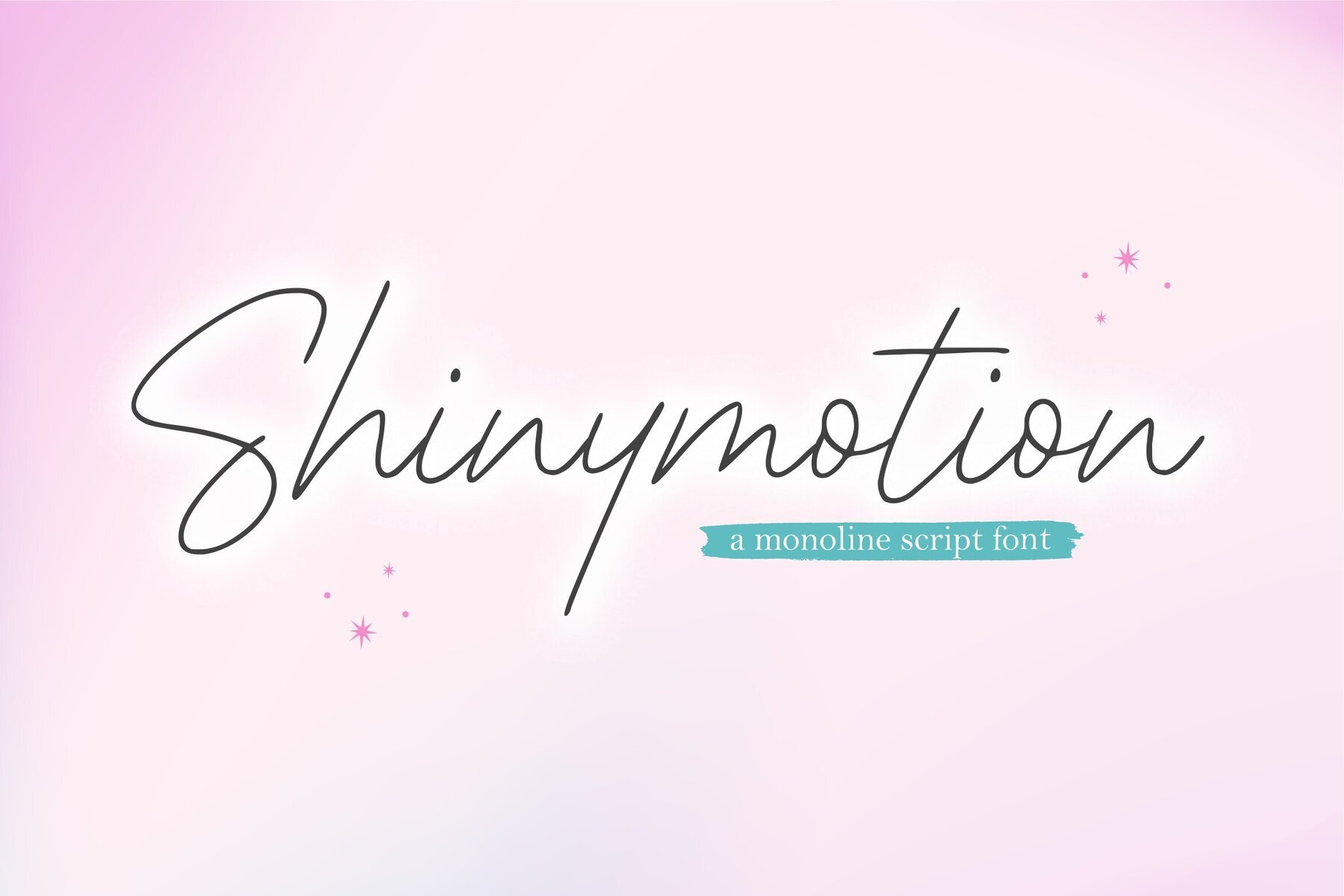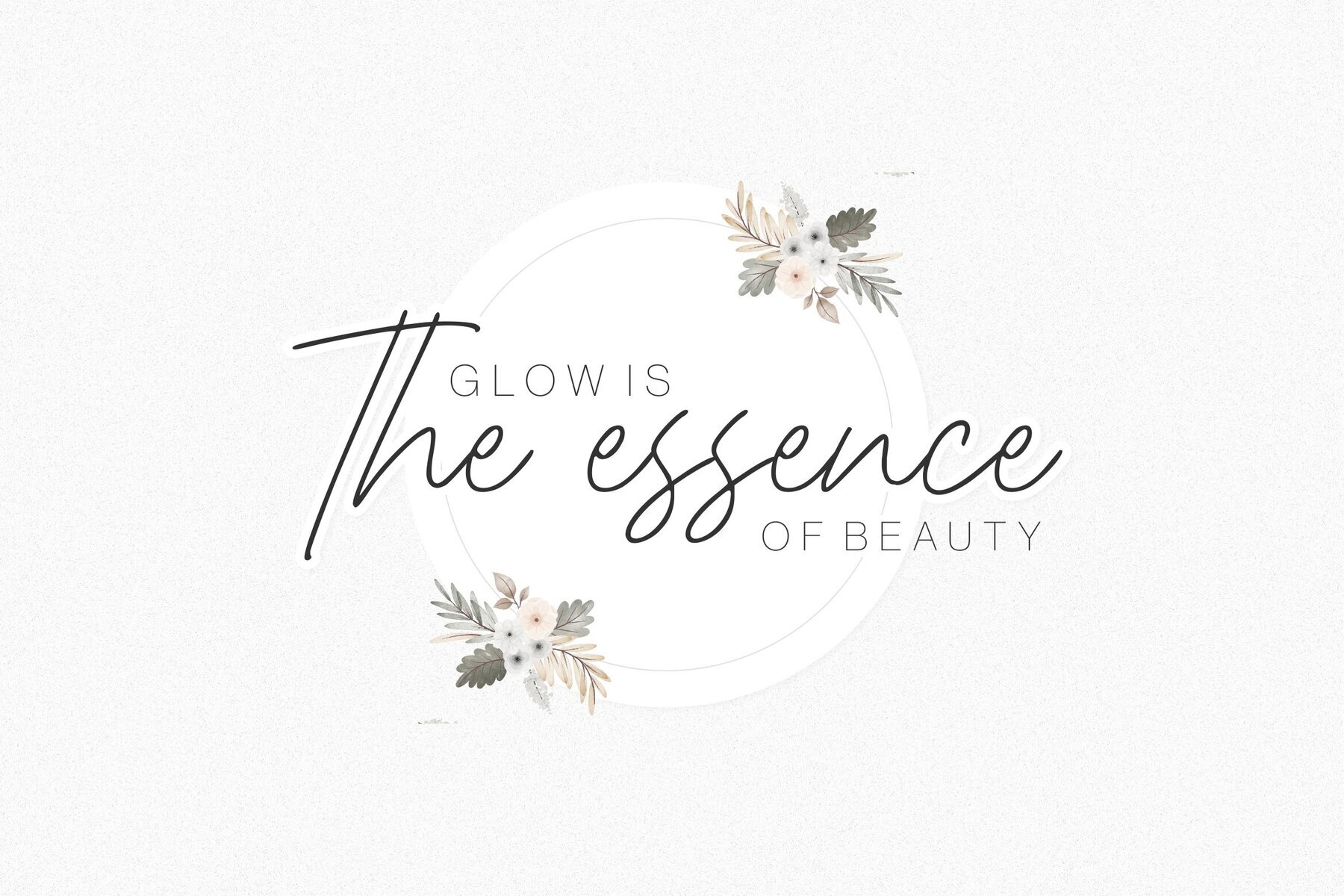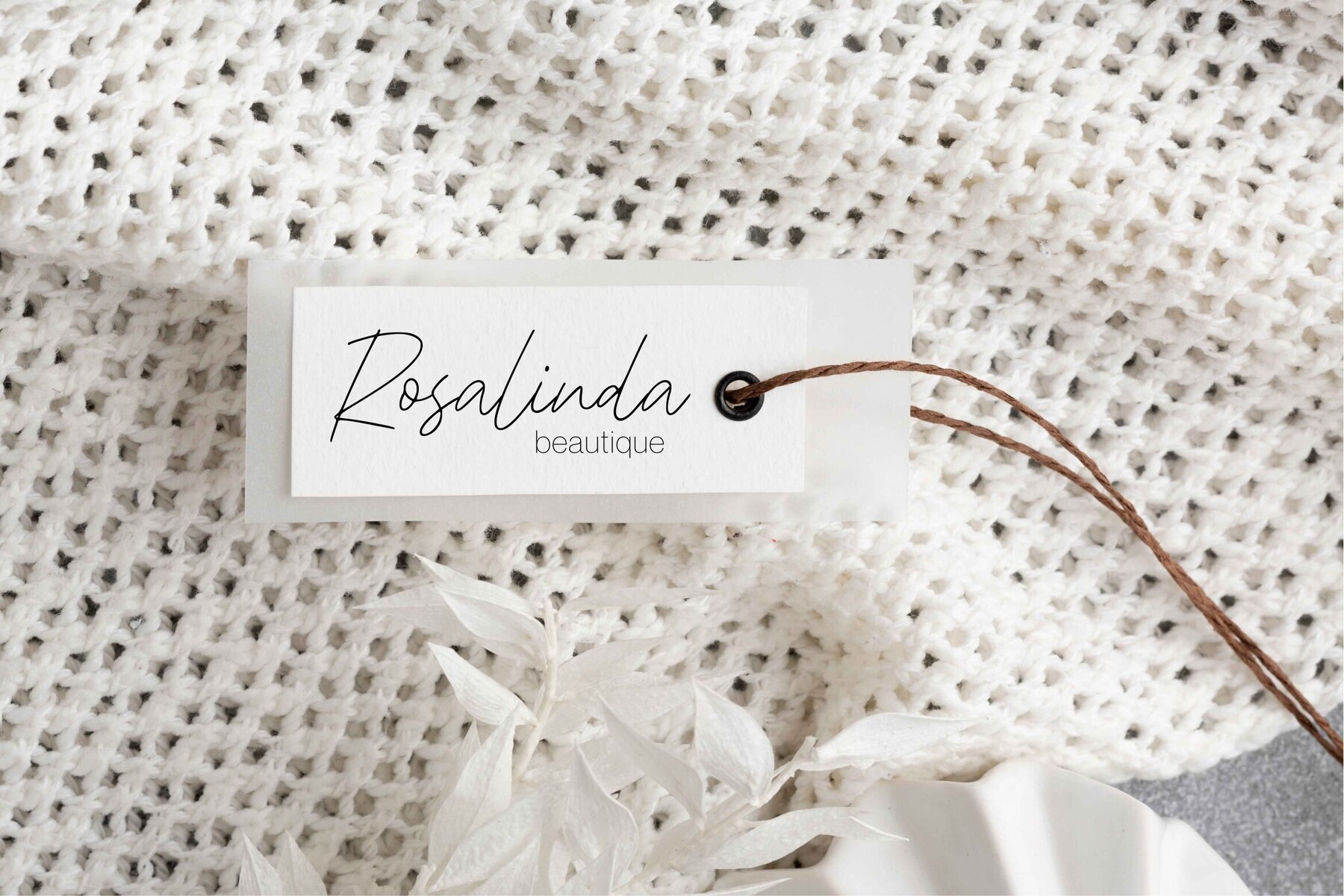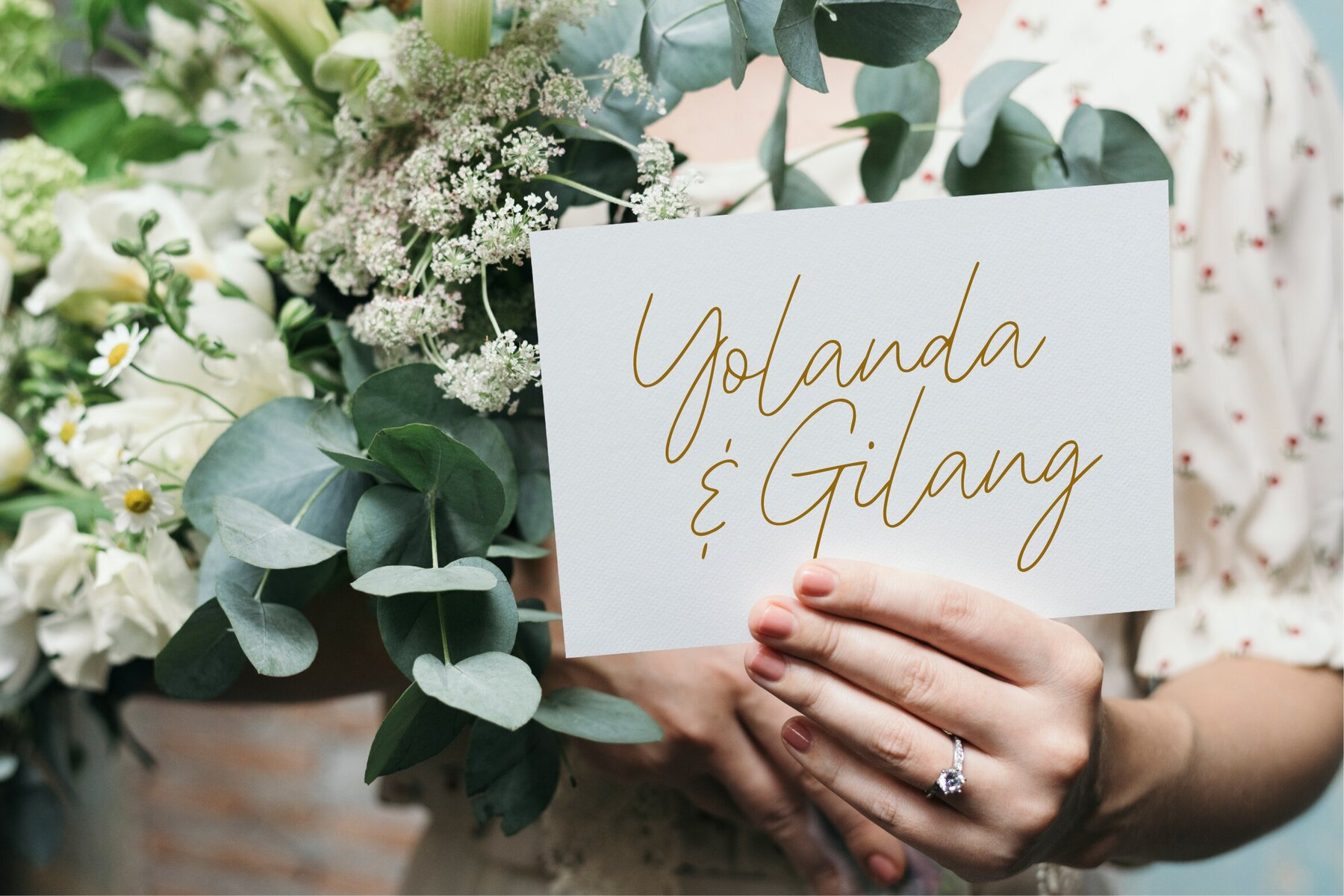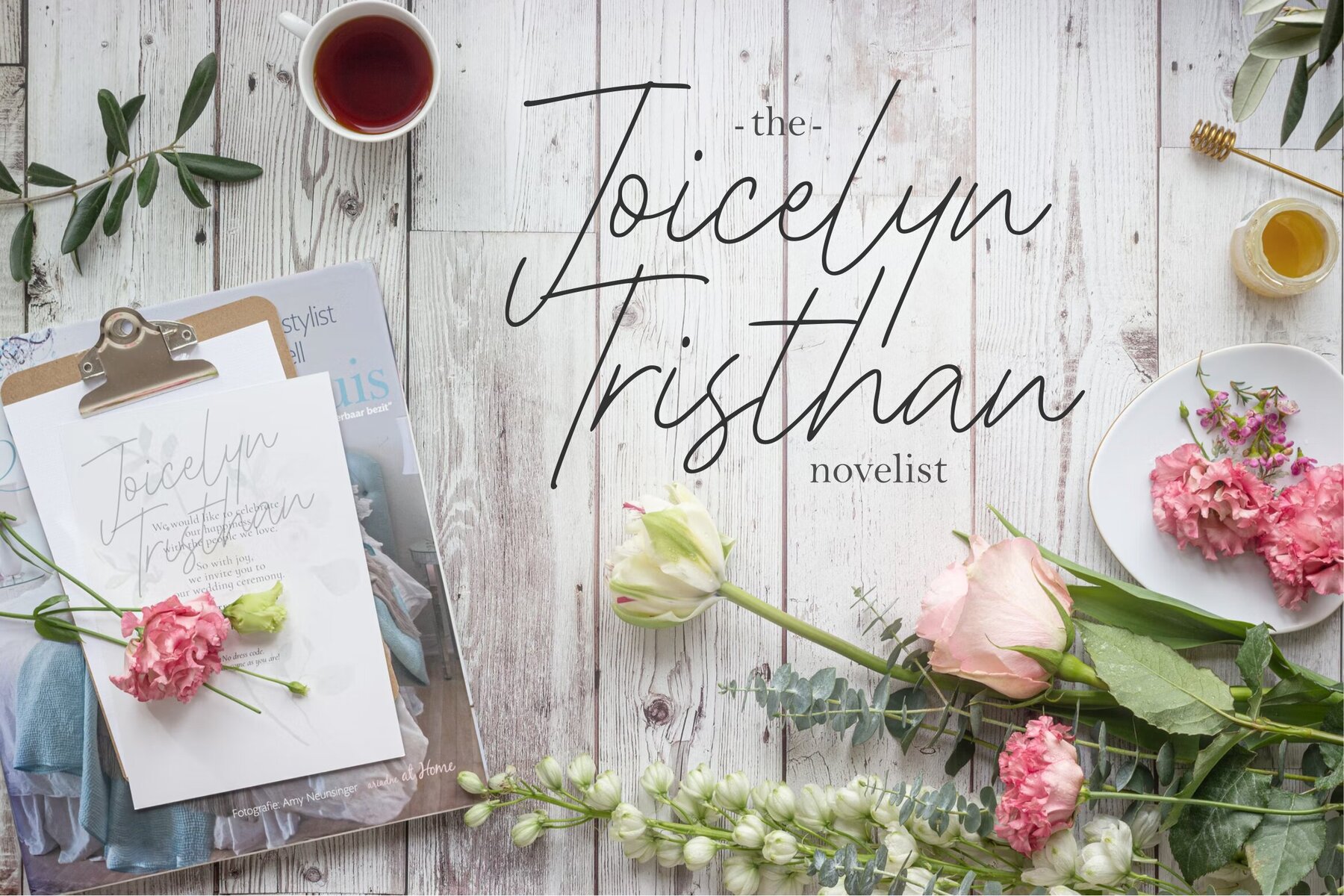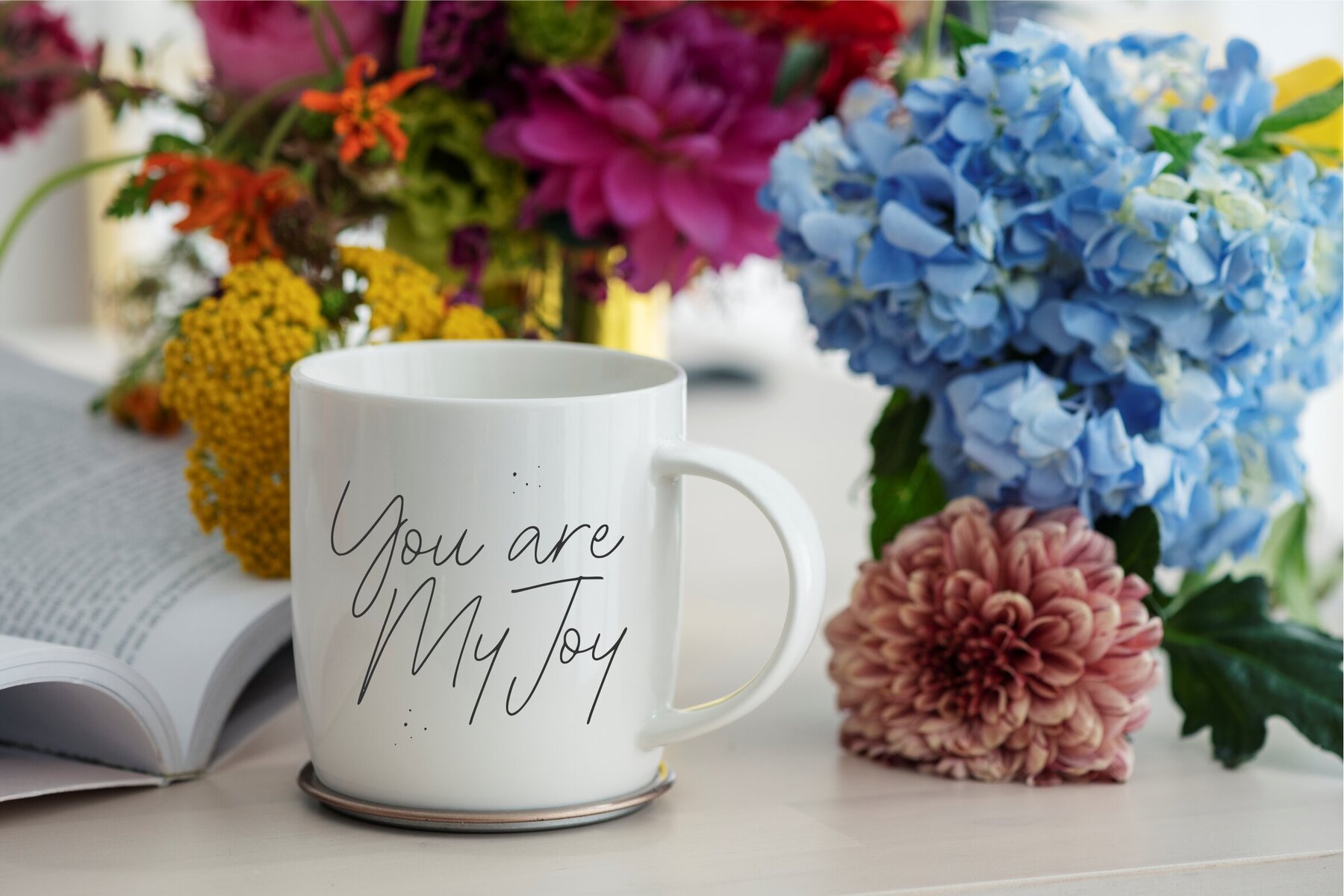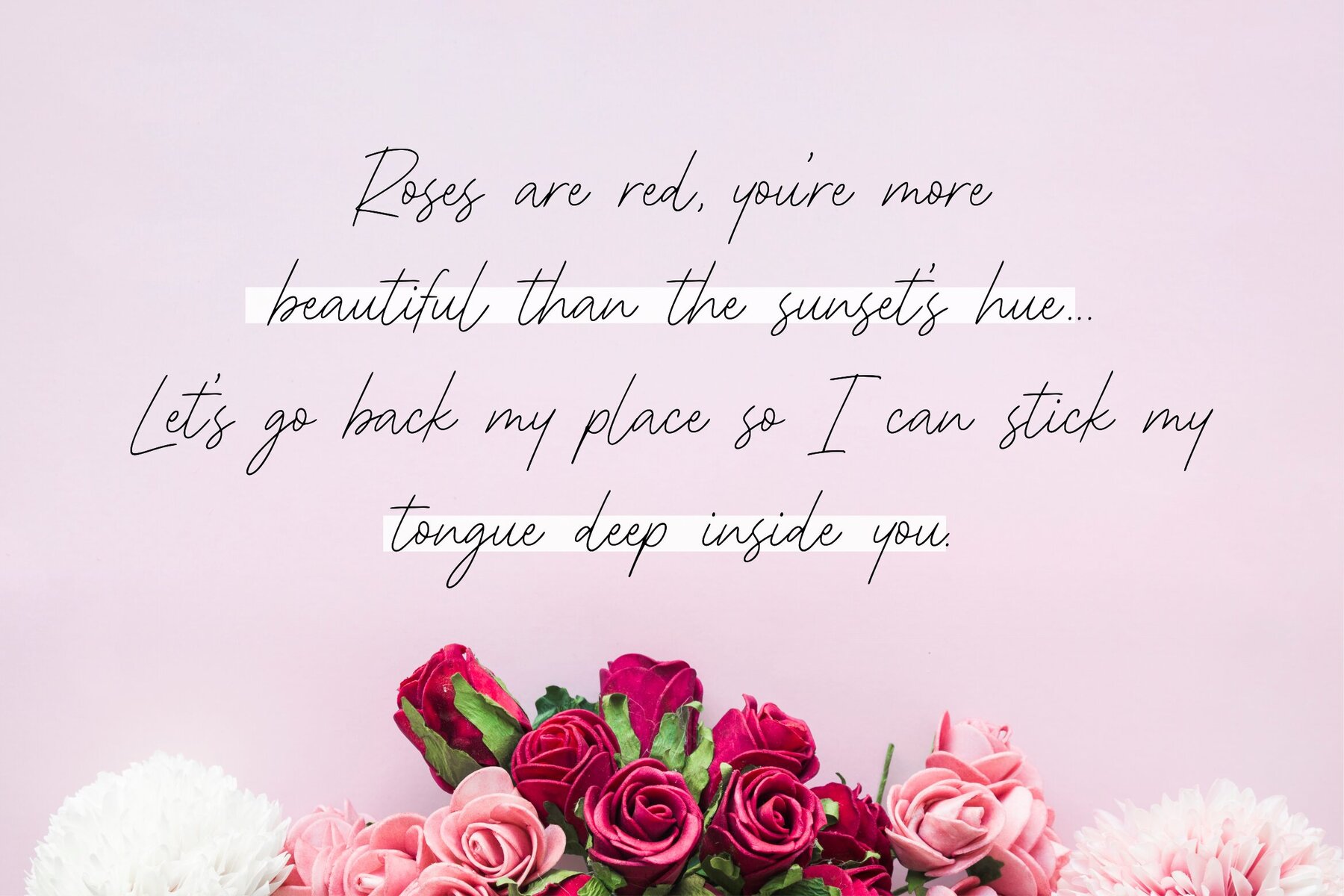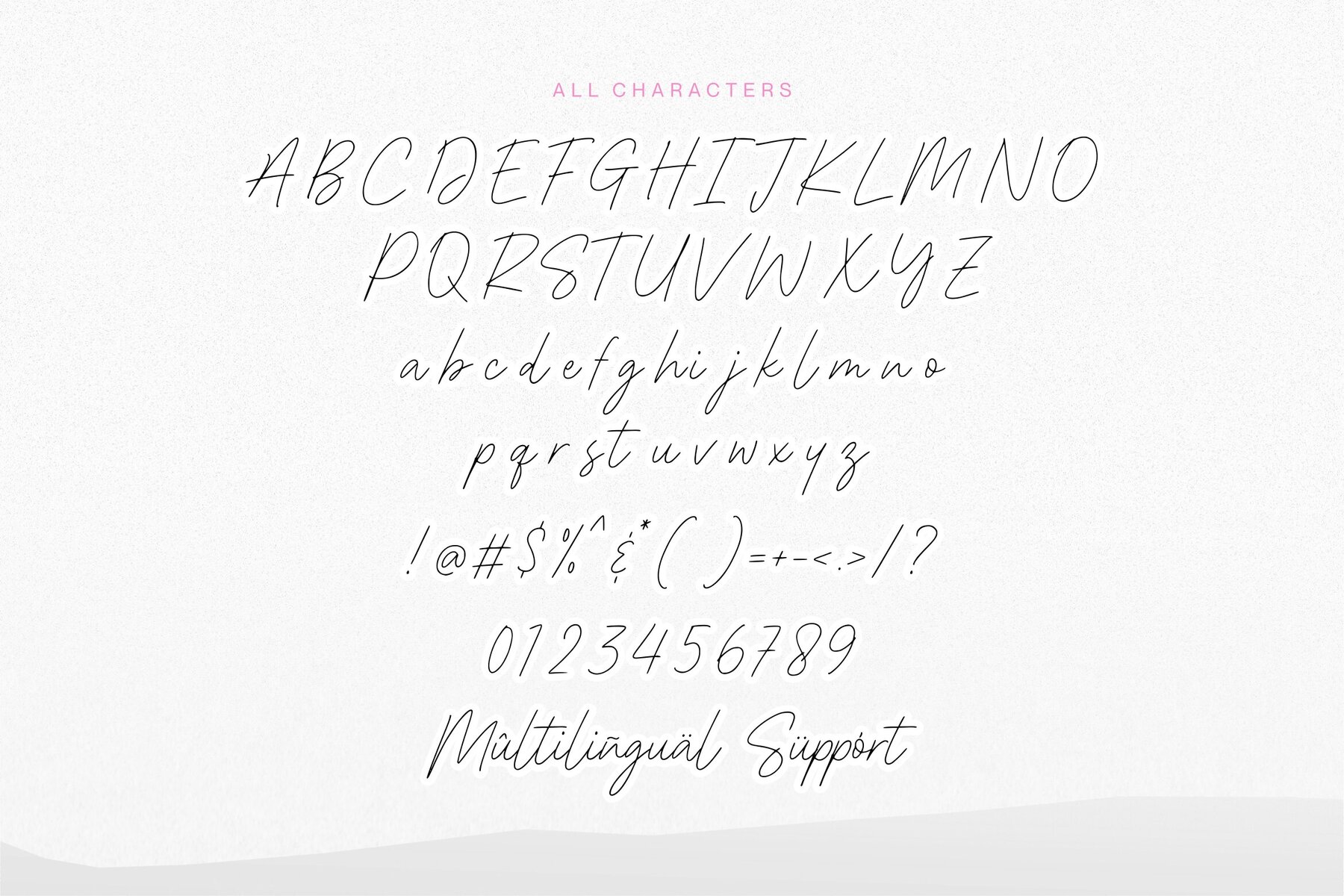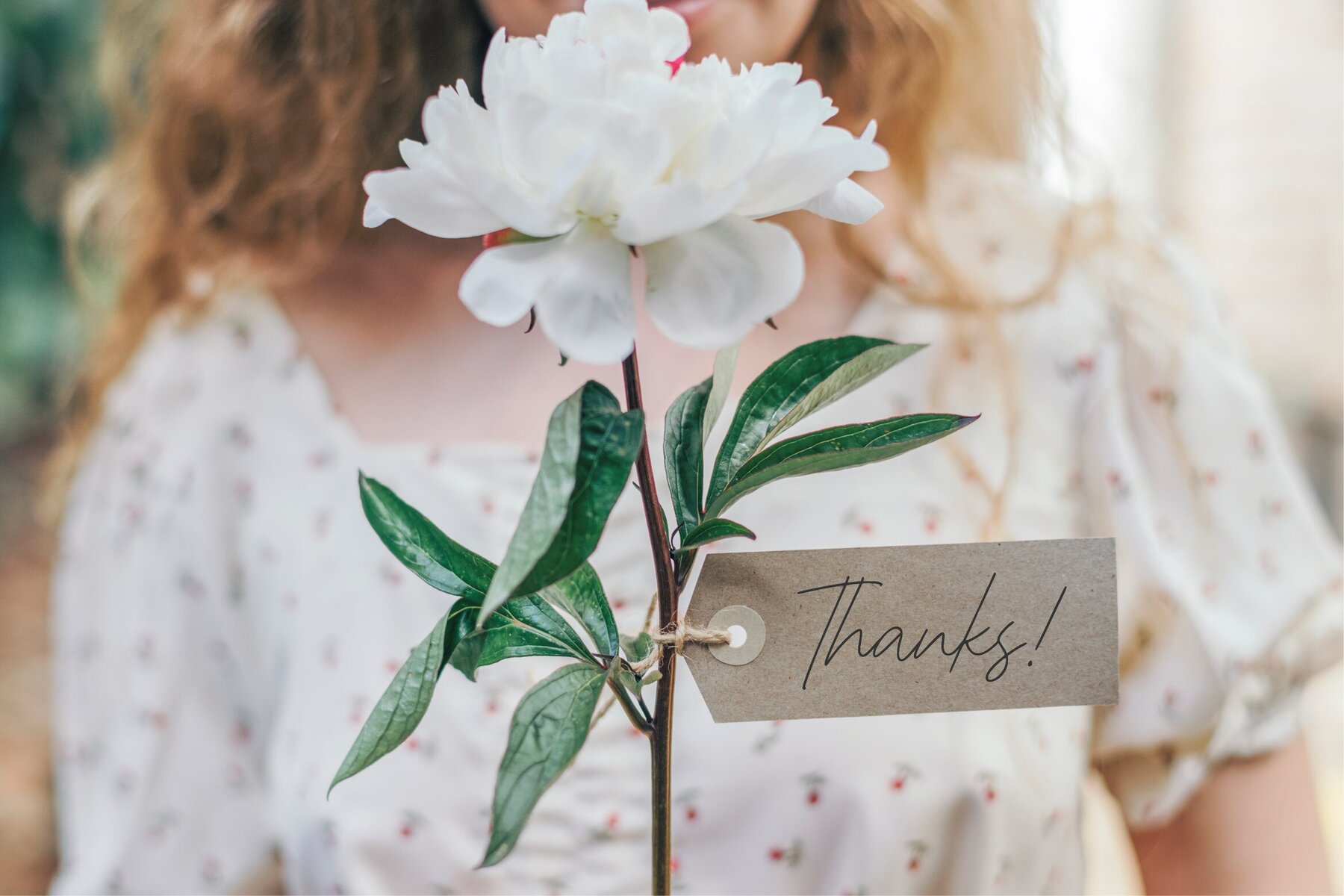
Shinymotion: Versatile Display Font for Impactful Design
Shinymotion by Allouse.Studio offers an elegant solution for various creative endeavors. Whether you are crafting eye-catching product packaging, developing a cohesive branding project, or designing a captivating magazine spread, Shinymotion provides the visual dynamism needed to engage your audience. Its flexibility extends to a multitude of platforms, from compelling social media graphics to sophisticated wedding invitations.
Features
• Adaptable usage for diverse design projects.
• Ideal for high-impact visual communication.
• Perfect balance between elegance and readability.